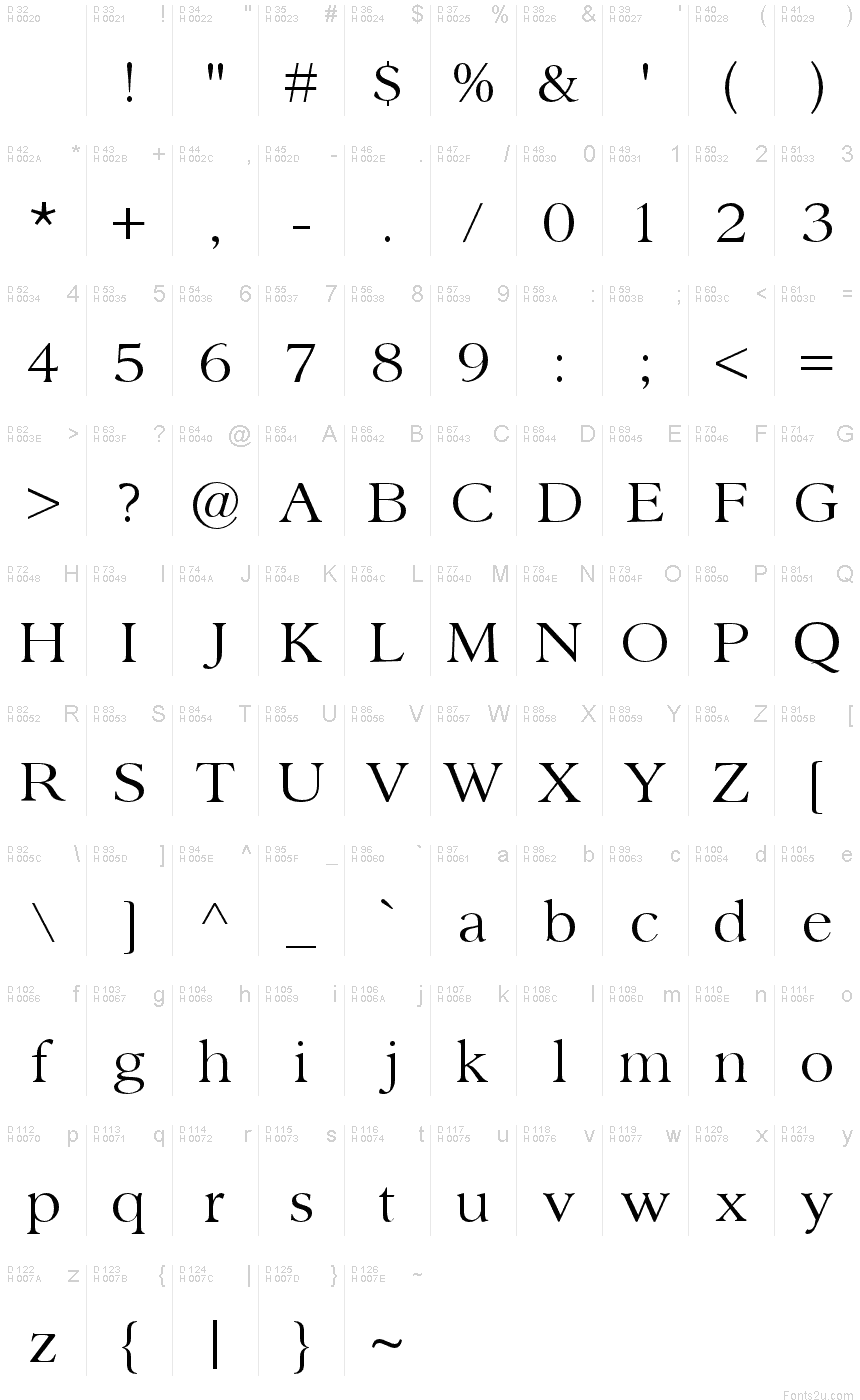
Sanford, from Jennifer Dickert and Fat Cat Fonts, is a free high-contrast serif font with the poised scale and expansive curves associated with fashion mastheads and formal display type. Broad capitals and hairline serifs create an elegant silhouette.
Designers working in fashion, beauty, and upscale hospitality will find it suited to magazine covers, perfume packaging, and hotel branding. Its refined proportions also suit cultural event posters, especially for exhibitions, classical music, or other subjects that benefit from an editorial, cultivated voice.